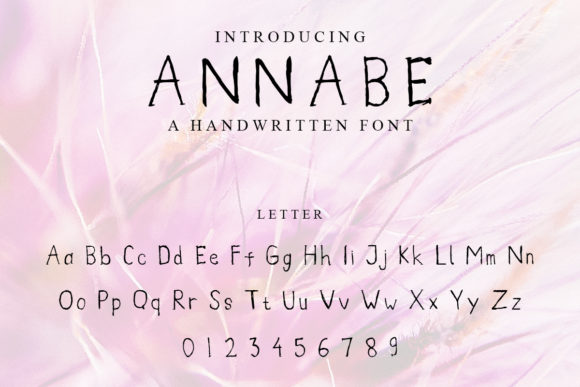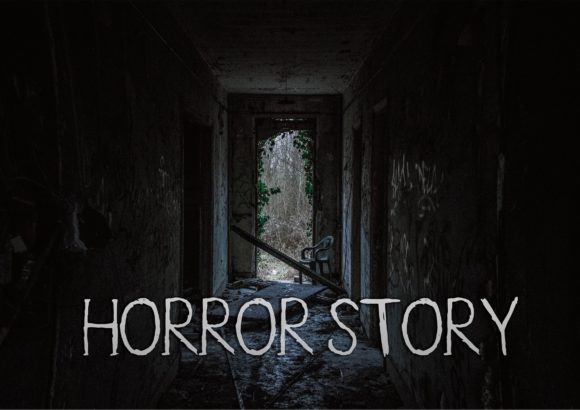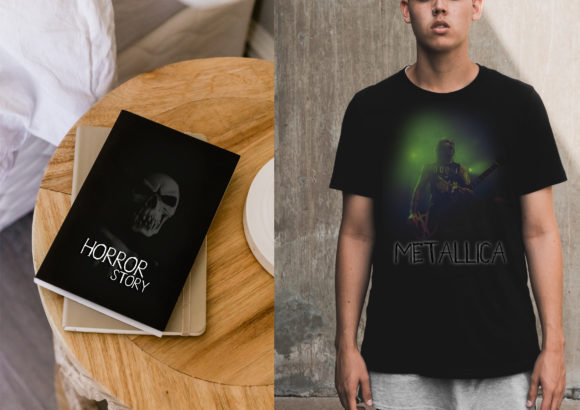
Annabe Font
About Annabe Font
Annabe is a simple yet scary handwritten font. It will add a dramatic touch to each of your Halloween or October themed designs. The only limit is your imagination!